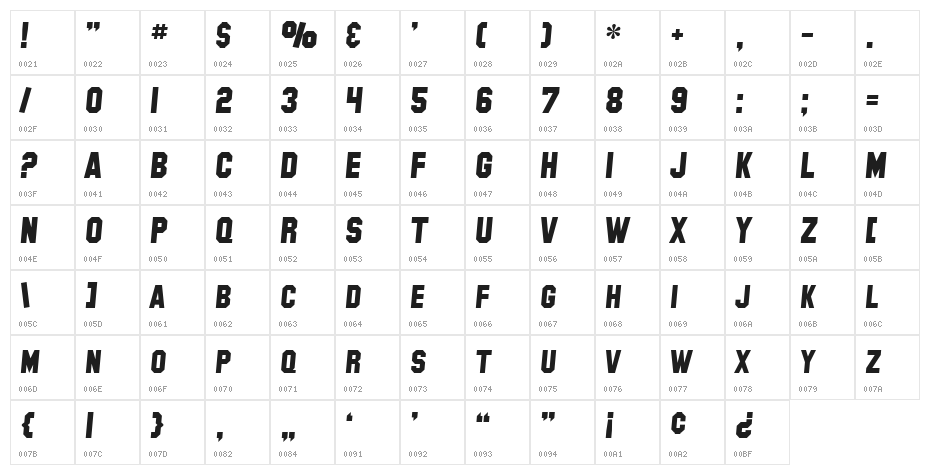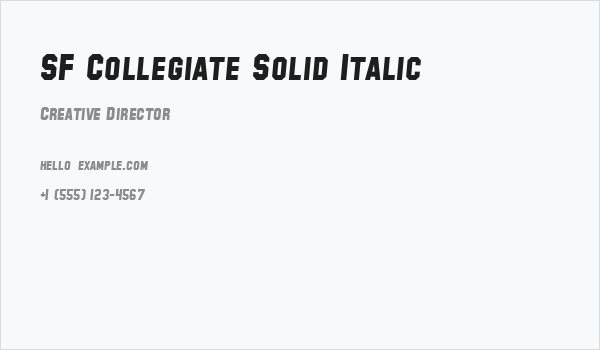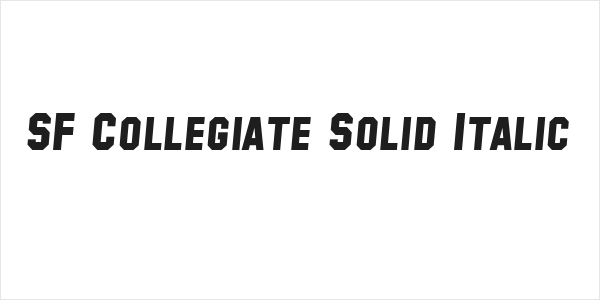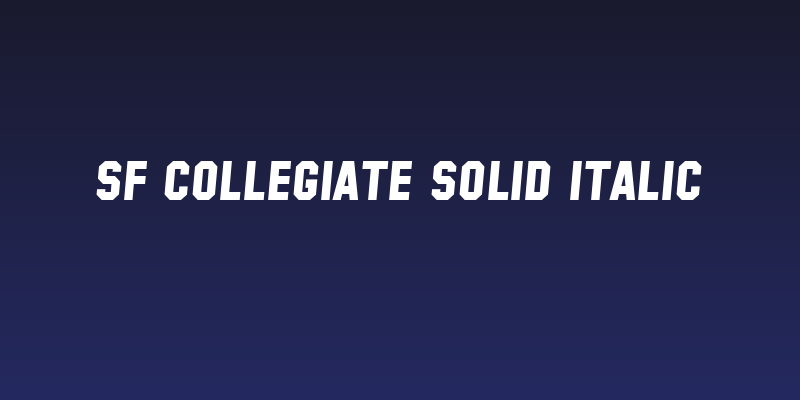
SF Collegiate Solid Italic Font
This font features a bold, collegiate style with solid, angular letterforms that convey strength and tradition. The italic slant adds a dynamic and forward-moving feel, making it suitable for athletic or academic themes. The uppercase and lowercase letters maintain a consistent weight, providing a uniform appearance. The numerals are equally bold and clear, ensuring readability. Special characters are included, matching the robust style of the alphabet. The overall design is reminiscent of varsity jackets and sports team logos, making it ideal for projects that require a strong, impactful presence.